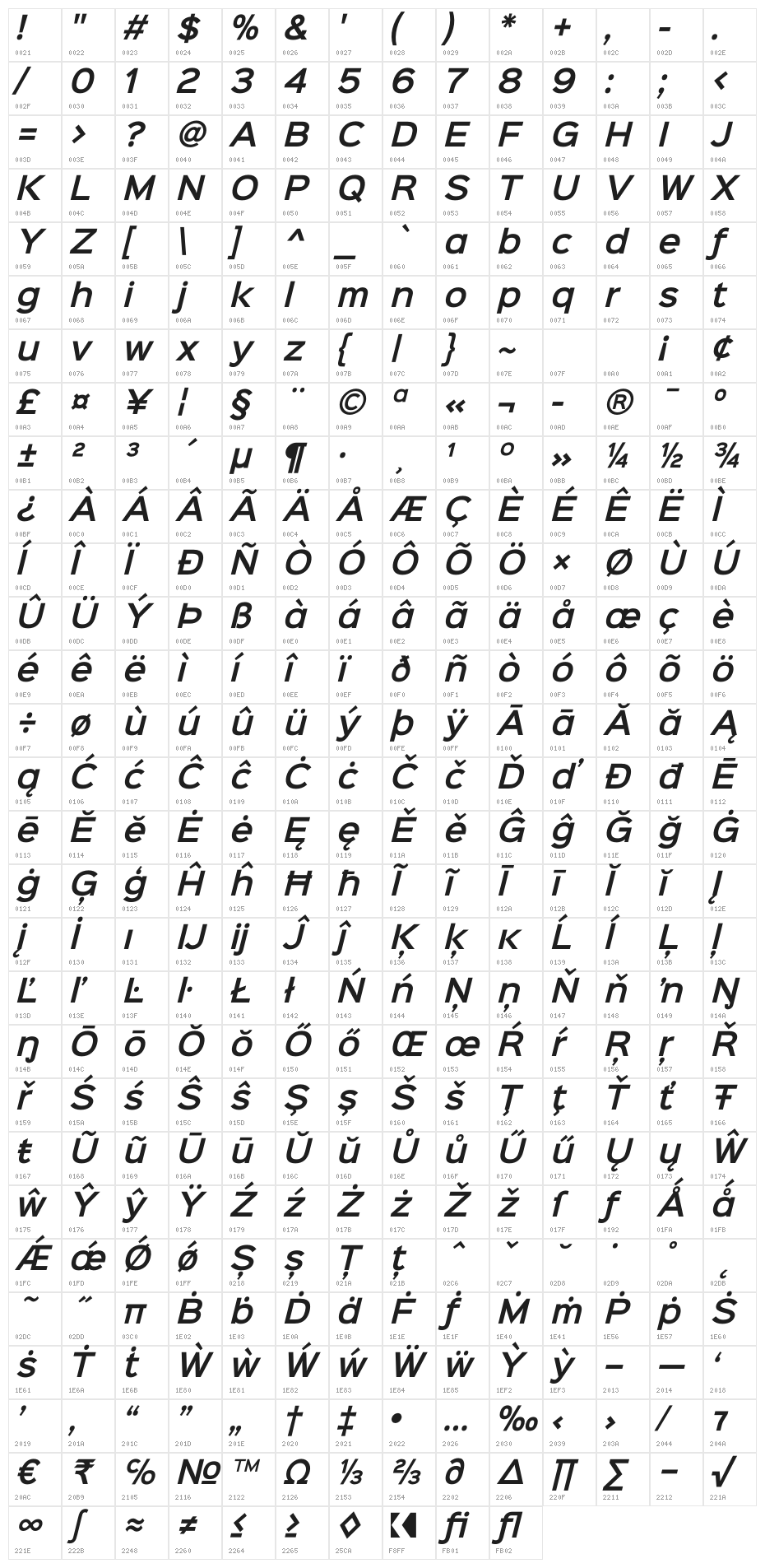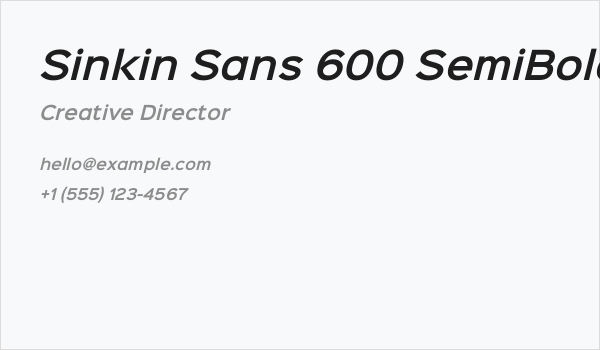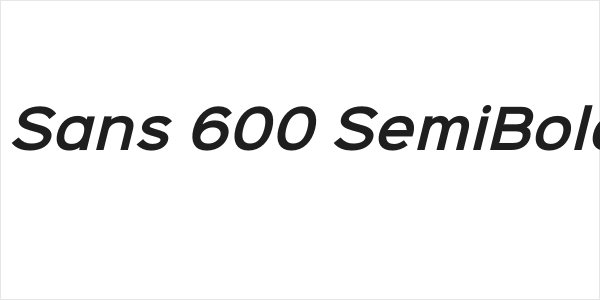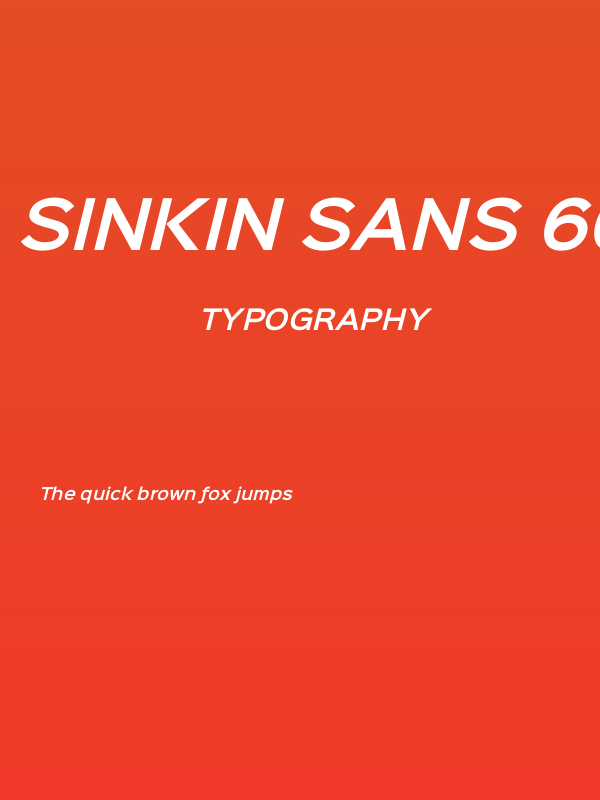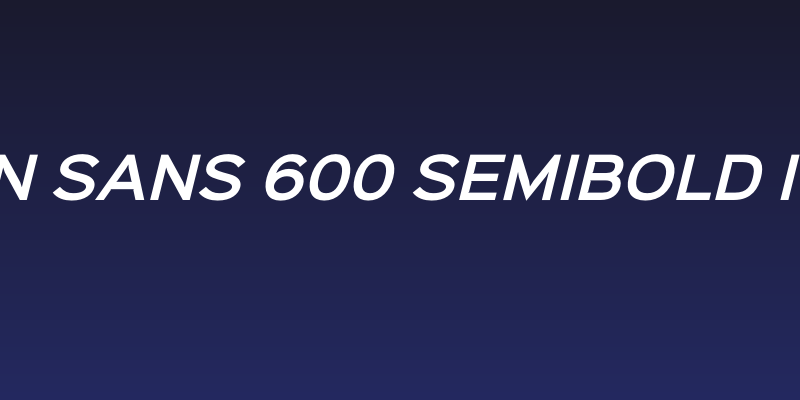
Sinkin Sans 600 SemiBold Italic Font
Sinkin Sans 600 SemiBold Italic Description
This font exhibits a clean and modern sans-serif style with a semi-bold weight, providing a strong yet approachable appearance. The italicized form adds a dynamic and forward-leaning character, making it suitable for emphasizing text without losing readability. The characters are well-proportioned with a consistent stroke width, contributing to its legibility across various sizes. The numerals and special characters maintain the same stylistic features, ensuring uniformity throughout. Its design is versatile, making it ideal for both digital and print media.
| Proposed Projects | Ideal for branding, advertising, web design, and editorial layouts where a modern and dynamic appearance is desired. |